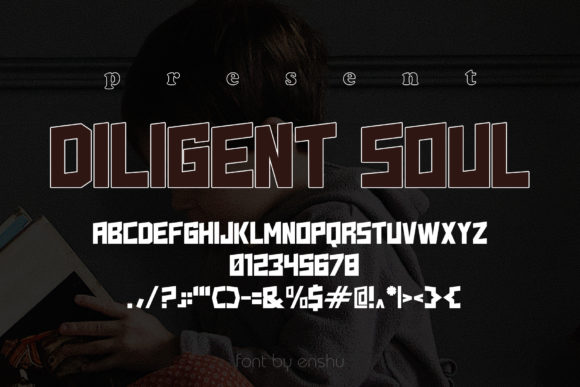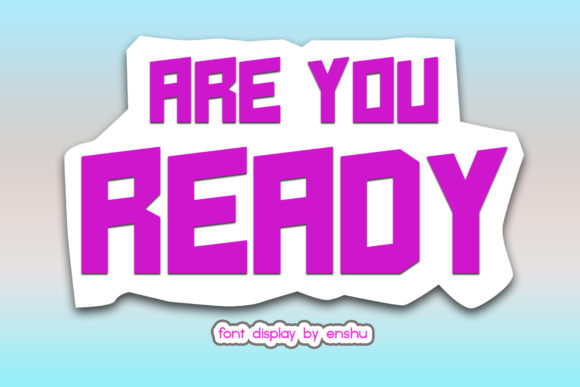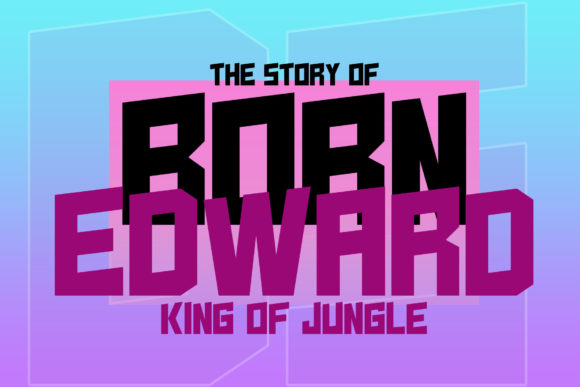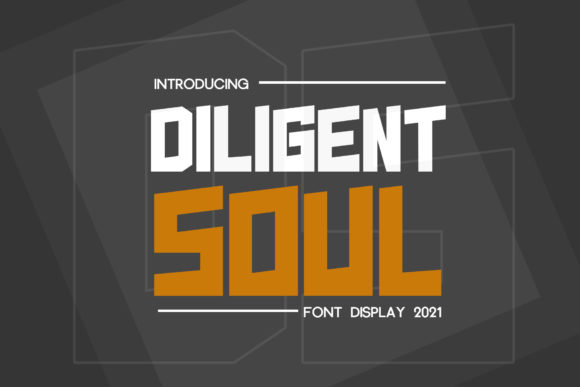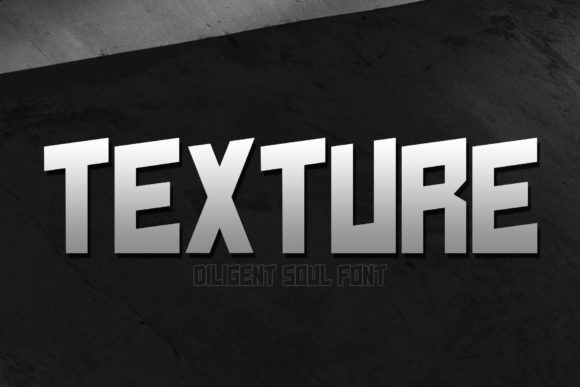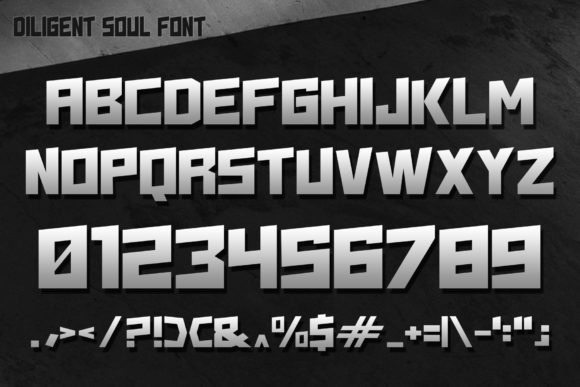
Diligent Soul Font: Elevate Your Designs with Hellobean
In the world of typography, fonts play a crucial role in conveying messages, expressing emotions, and creating visual identities. For designers and crafters, finding the perfect font can be a daunting task, especially when it comes to creating unique and modern designs. This is where Hellobean, a cool, bold, and chunky lettered display font, comes into play. In this article, we’ll dive into the world of Diligent Soul Font and explore how Hellobean can elevate your designs.
What is Hellobean?
Hellobean is a stylish and eye-catching display font that is perfect for making a statement. Its bold and chunky lettering makes it ideal for writing web designs, business cards, or pretty much anything else that requires a unique, modern touch. Whether you’re a designer, crafty person, or simply someone who loves typography, Hellobean is a fantastic addition to your font collection.
Key Features of Hellobean
- Bold and Chunky Lettering: Hellobean’s bold and chunky lettering makes it perfect for creating eye-catching designs that grab attention.
- Unique and Modern Style: Hellobean’s unique and modern style sets it apart from other fonts, making it ideal for designers who want to create something fresh and exciting.
- Versatile: Hellobean can be used for a wide range of design projects, from web designs and business cards to posters and social media graphics.
- Easily Readable: Despite its bold and chunky style, Hellobean is easily readable, making it perfect for use in a variety of contexts.
Benefits of Using Hellobean
Using Hellobean in your designs can have numerous benefits. Here are a few:
- Stand Out from the Crowd: With Hellobean, you can create designs that stand out from the crowd and grab attention.
- Convey Confidence and Creativity: Hellobean’s bold and chunky style conveys confidence and creativity, making it perfect for designers who want to express themselves.
- Save Time: With Hellobean, you can create professional-looking designs in no time, saving you time and effort.
Who Can Use Hellobean?
Hellobean is perfect for a wide range of designers and crafters, including:
- Graphic Designers: Graphic designers can use Hellobean to create stunning visual identities, logos, and branding materials.
- Web Designers: Web designers can use Hellobean to create modern and responsive web designs that grab attention.
- Crafters: Crafters can use Hellobean to create beautiful and unique craft projects, such as handmade cards and gift tags.
- Social Media Enthusiasts: Social media enthusiasts can use Hellobean to create eye-catching social media graphics and posts.
Tips for Using Hellobean
Here are a few tips for using Hellobean:
- Experiment with Colors: Hellobean looks great in a variety of colors, so don’t be afraid to experiment and find the perfect color scheme for your design.
- Pair with Other Fonts: Hellobean can be paired with other fonts to create stunning contrast and visual interest.
- Use for Headlines and Titles: Hellobean is perfect for use in headlines and titles, where its bold and chunky style can really make an impact.
In conclusion, Hellobean is a fantastic display font that can elevate your designs and help you create unique and modern visual identities. With its bold and chunky lettering, versatile style, and easily readable design, Hellobean is perfect for designers and crafters who want to make a statement. So why not give Hellobean a try and see how it can take your designs to the next level?